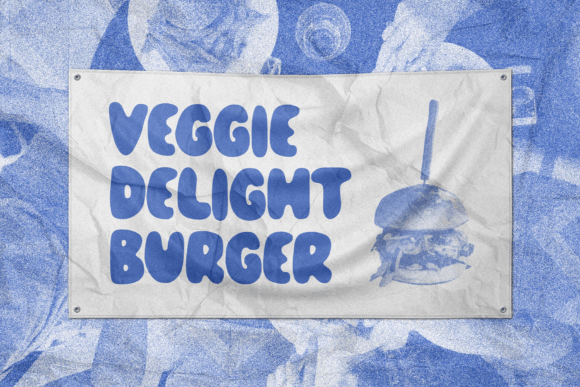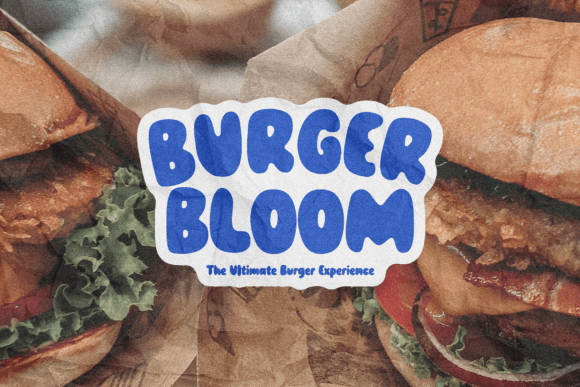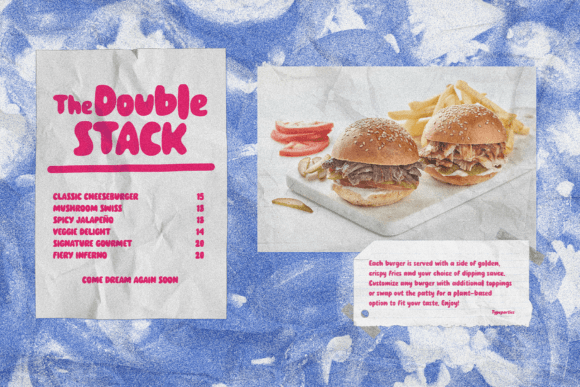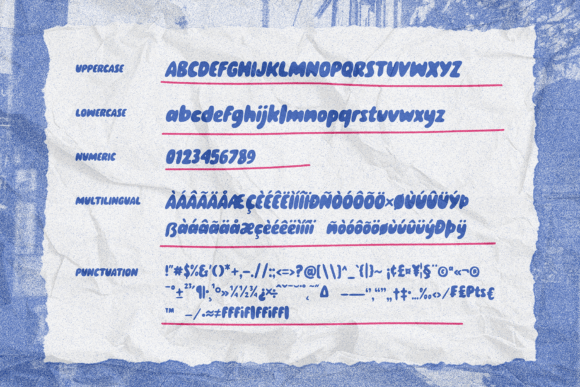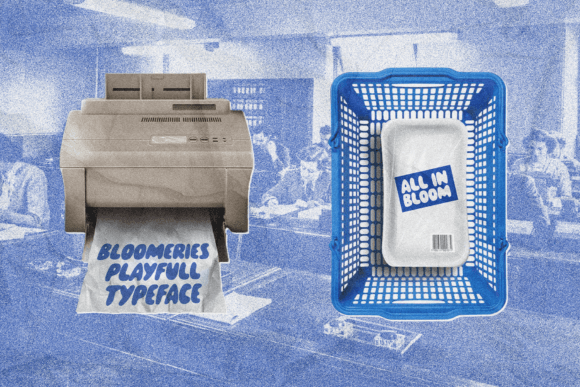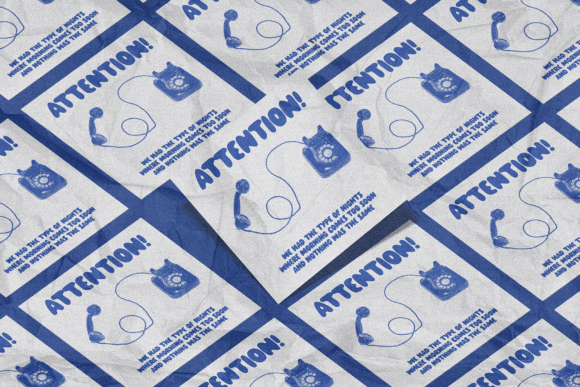
Bloom Font: Unleashing Vibrant Charm in Typography
In the world of typography, fonts are more than just a means to convey words; they are an expression of personality, tone, and style. Among the myriad of typefaces available, the Bloom font stands out for its unique blend of energy, whimsy, and charm. This comprehensive guide explores the Bloom font’s characteristics, uses, and benefits, making it a valuable resource for designers and crafters looking to infuse their projects with a lively and dynamic touch.
The Essence of Bloom Font
A Bloom font bursts with personality and energy, combining strong, thick lines with whimsical, creative touches. Its rounded edges and exaggerated curves make each letter feel lively and dynamic, exuding a sense of fun and spontaneity. This typeface often features unexpected twists and playful flourishes that capture attention and invite a smile. The essence of Bloom font lies in its ability to balance readability with a spirited, joyful flair, making it perfect for projects that require a dose of vibrant charm.
Key Characteristics of Bloom Font
- Rounded Edges: The rounded edges of Bloom font give it a soft, approachable feel, making it instantly more friendly and inviting.
- Exaggerated Curves: The exaggerated curves add to the font’s dynamic and lively feel, making each letter stand out.
- Playful Flourishes: Unexpected twists and flourishes add a whimsical touch, capturing attention and adding to the font’s charm.
- Strong, Thick Lines: The robust lines ensure that the font remains readable and impactful, even in larger sizes.
Perfect Use Cases for Bloom Font
Bloom font’s unique characteristics make it suitable for a variety of projects. Here are some perfect use cases:
- Headlines: The font’s vibrant and dynamic nature makes it ideal for headlines that need to grab attention.
- Children’s Materials: The playful and whimsical feel of Bloom font makes it perfect for children’s books, educational materials, and kids’ websites.
- Branding and Logos: For brands looking to convey a sense of fun, spontaneity, and creativity, Bloom font can be a great choice.
- Invitations and Announcements: Whether it’s a birthday party invitation or a product launch announcement, Bloom font can add a touch of excitement and anticipation.
Benefits of Using Bloom Font
Choosing Bloom font for your project comes with several benefits:
- Unique Personality: Bloom font brings a unique personality to your project, setting it apart from more traditional typefaces.
- Emotional Connection: The whimsical and playful nature of the font can create an emotional connection with your audience, making your message more memorable.
- Versatility: Despite its unique characteristics, Bloom font remains versatile and can be used across various mediums, from digital platforms to print materials.
- Readability: The careful balance of style and readability ensures that your message is conveyed clearly and effectively.
Tips for Using Bloom Font Effectively
To make the most of Bloom font, consider the following tips:
- Pair with Simpler Fonts: For body text, pair Bloom font with simpler, more readable fonts to create a balanced design.
- Use in Moderation: While Bloom font is eye-catching, using it in moderation can prevent your design from feeling overwhelming.
- Experiment with Colors: Bloom font looks great in bright, vibrant colors, but don’t be afraid to experiment with different color schemes to match your brand or project theme.
- Consider the Audience: Ensure that Bloom font aligns with your audience’s preferences and expectations, especially for more formal projects.
| Font Name | Bloom Font |
| Author | typeparties |
Bloom font is a vibrant and dynamic typeface that brings a burst of energy and whimsy to any project. Its unique blend of strong lines, rounded edges, and playful flourishes makes it perfect for headlines, children’s materials, and any design that could benefit from a lively and joyful flair. By understanding its characteristics, use cases, and benefits, designers and crafters can effectively incorporate Bloom font into their projects, creating visually appealing and engaging designs that capture attention and leave a lasting impression.